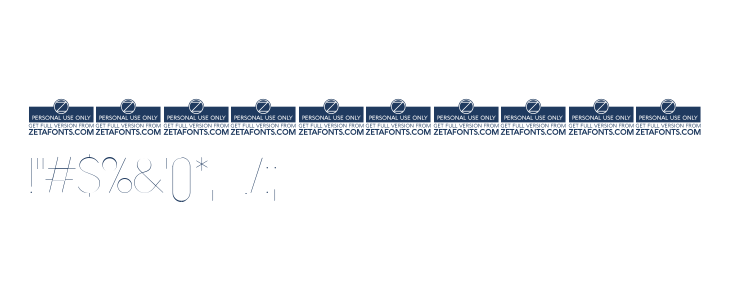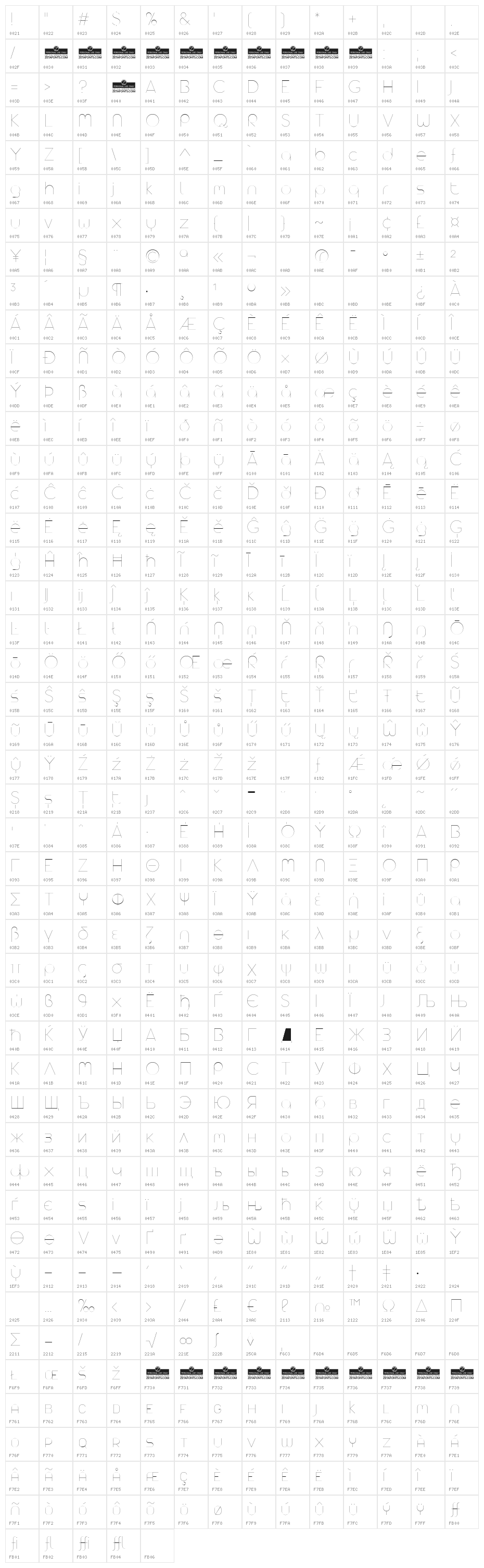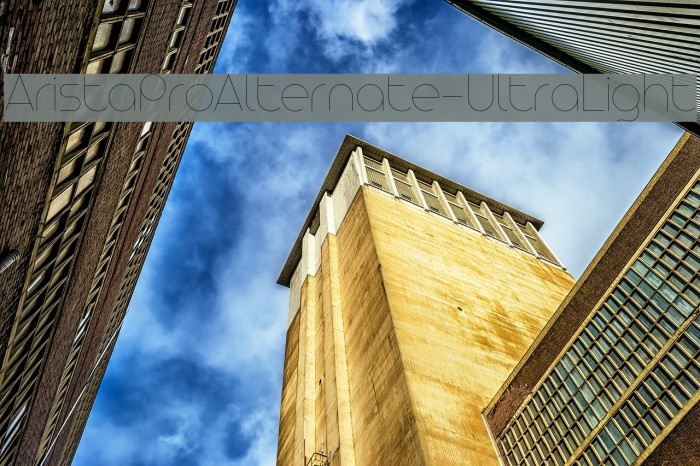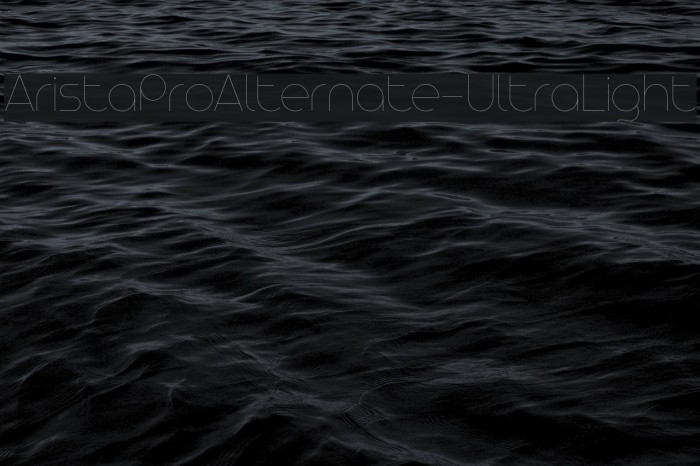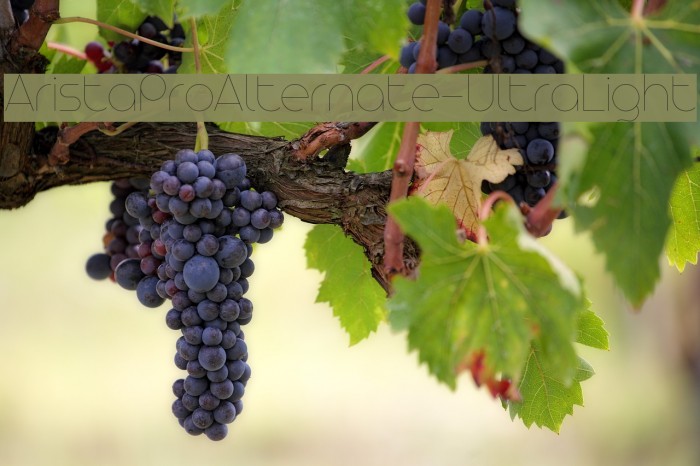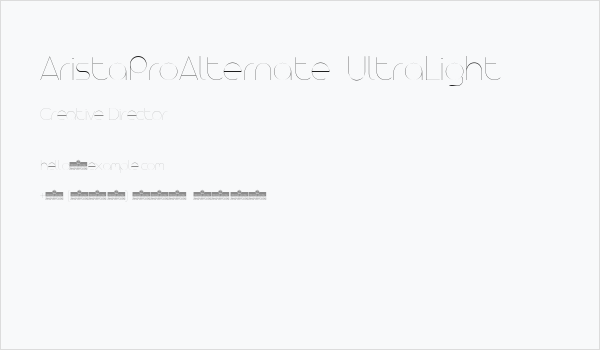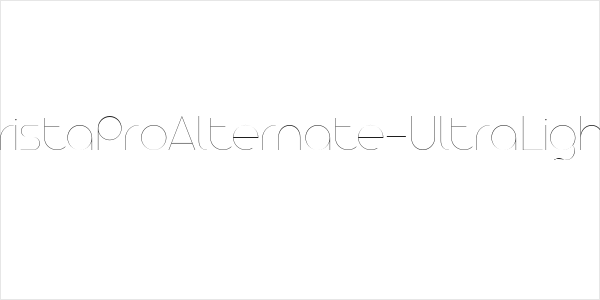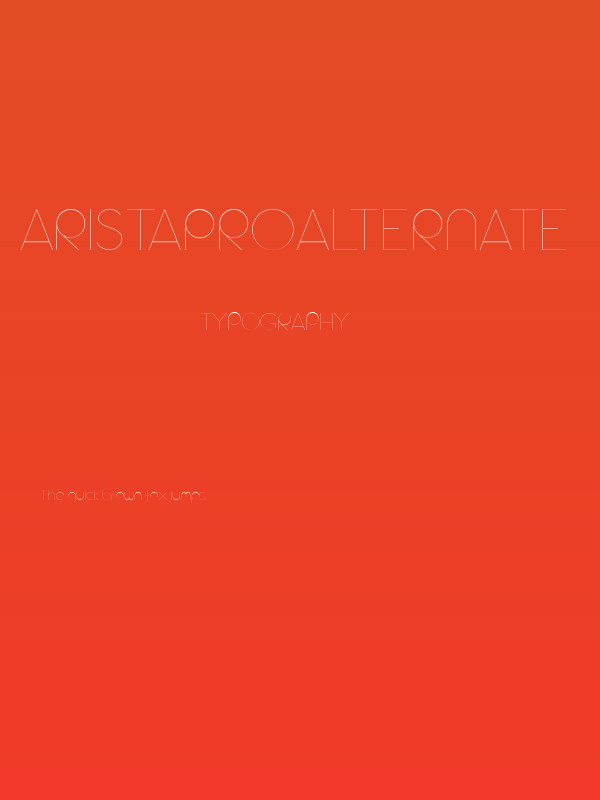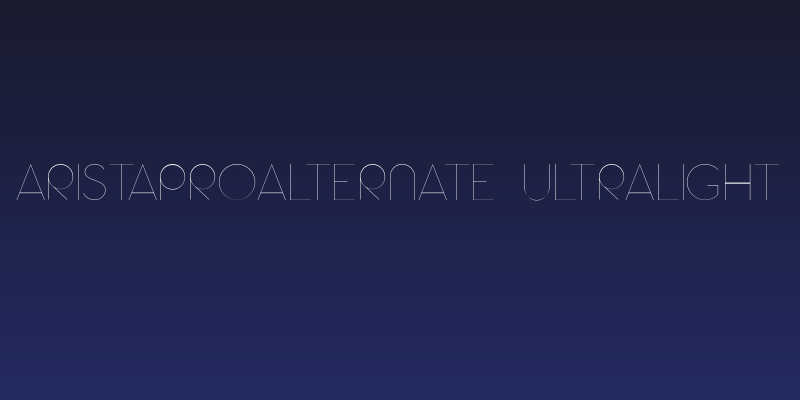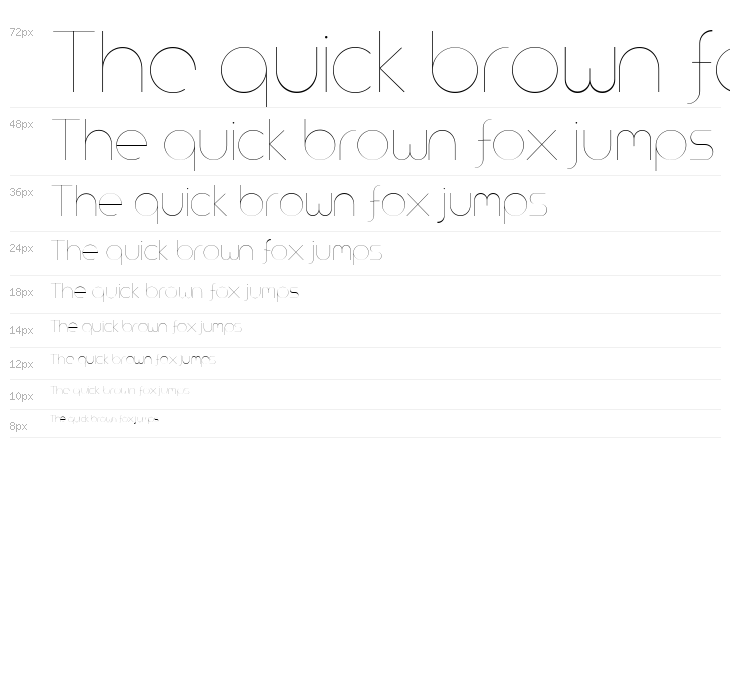
AristaProAlternate-UltraLight Font
AristaProAlternate-UltraLight Description
This font features an ultra-lightweight design with a modern and minimalist aesthetic. The characters are crafted with thin, consistent lines, giving it a sleek and airy appearance. The uppercase and lowercase letters maintain a geometric structure, with clean lines and sharp angles. The numerals and special characters follow the same minimalist style, ensuring uniformity across all glyphs. This font's simplicity and elegance make it suitable for contemporary design projects where a subtle yet sophisticated look is desired.
| Use Case | Headlines, Logos, Digital Interfaces |
| Proposed Projects | Ideal for branding, editorial design, minimalist posters, and digital interfaces where a clean and modern look is essential. |